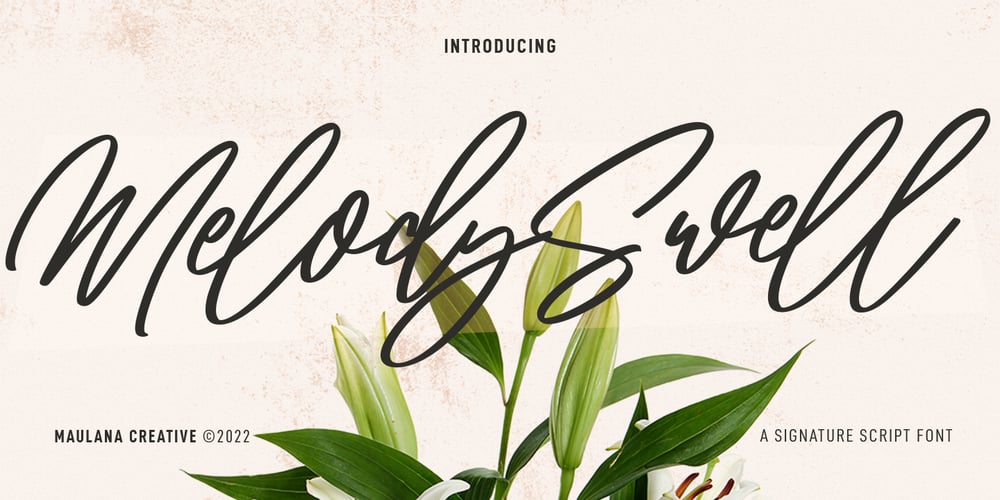
Melody Swell
Melody Swell font
Melody Swell Font Family was designed by Gilang Maulana and published by Maulana Creative. Melody Swell contains 1 styles and family package options. Melody Swell is a fancy handwritten script font. With medium contrast stroke, fun character with a bit of ligatures and alternates. To give you an extra creative work. Melody Swell font support multilingual more than 100+ language. This font is good for logo design, Social media, Movie Titles, Books Titles, a short text even a long text letter and good for your secondary text font with sans or serif. Make a stunning work with Melody Swell font. Cheers, MaulanaCreative